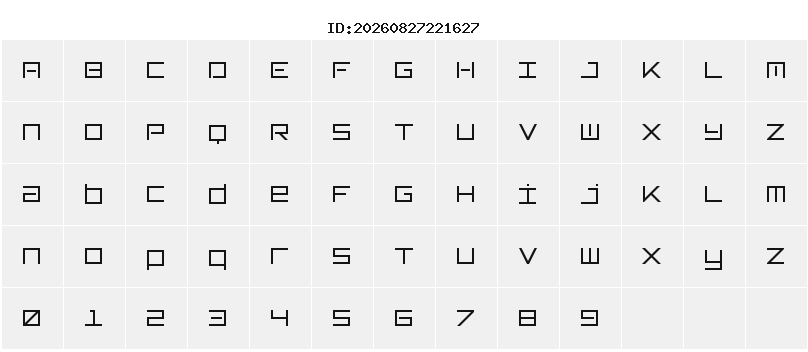
TypeOne Preview
• Font Name: TypeOne
• Font ID: FontStruct TypeOne
• Full Font Name: TypeOne Regular
• Designer: nirmalbiswas
• Description: ‚ÄúTypeOne‚Äù was built with FontStruct
About TypeOne.ttf
TypeOne.ttf is a modern, elegant sans-serif font designed for ultimate readability and visual harmony. Perfect for branding, headlines, web design, and print materials.